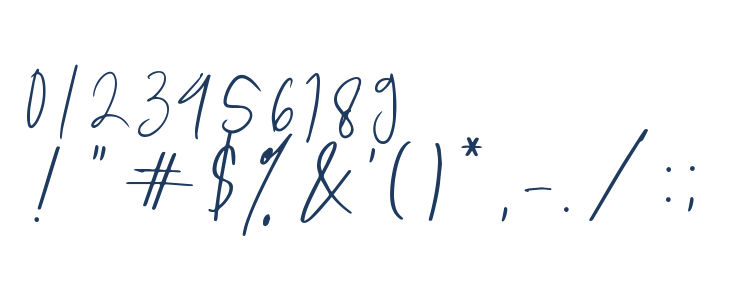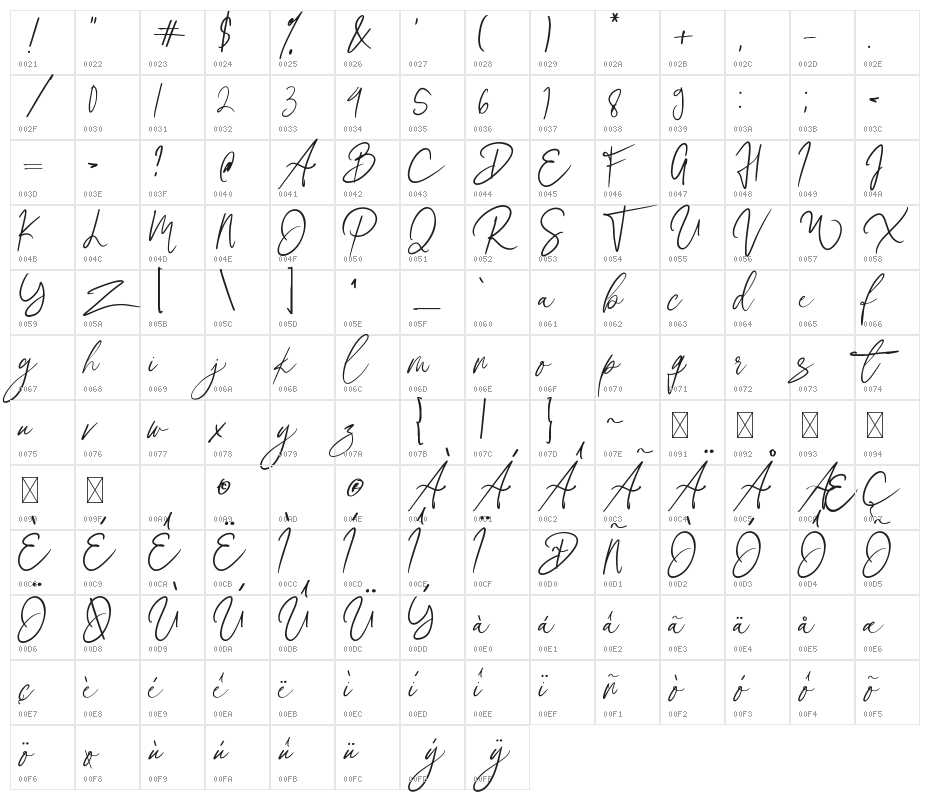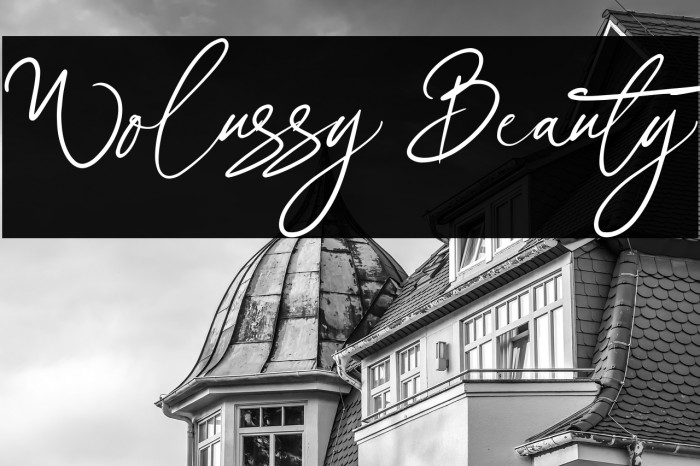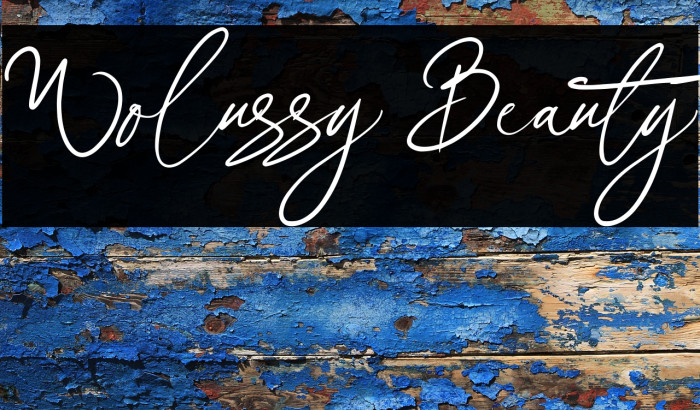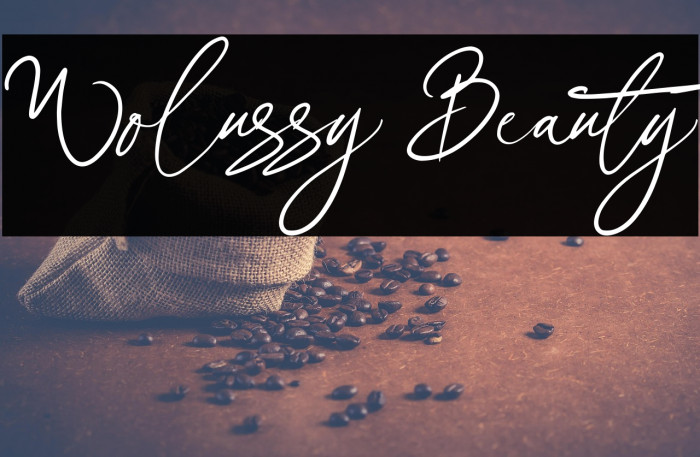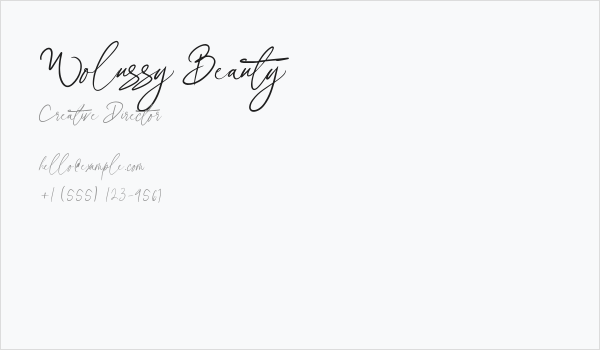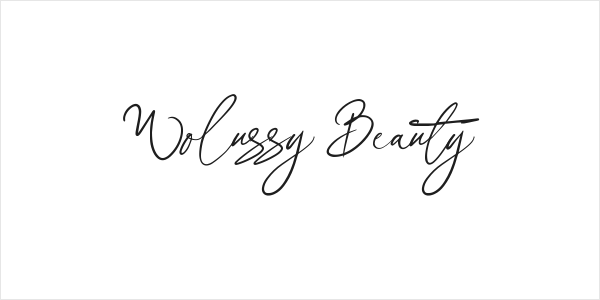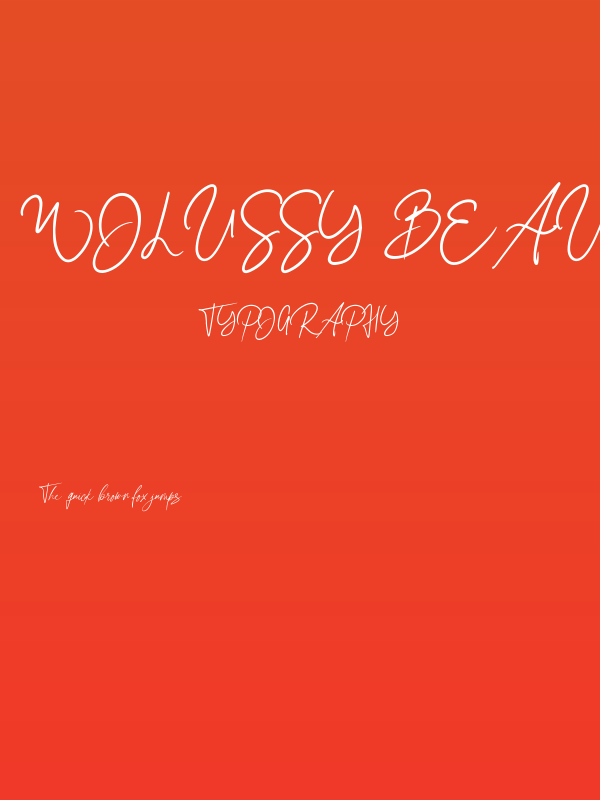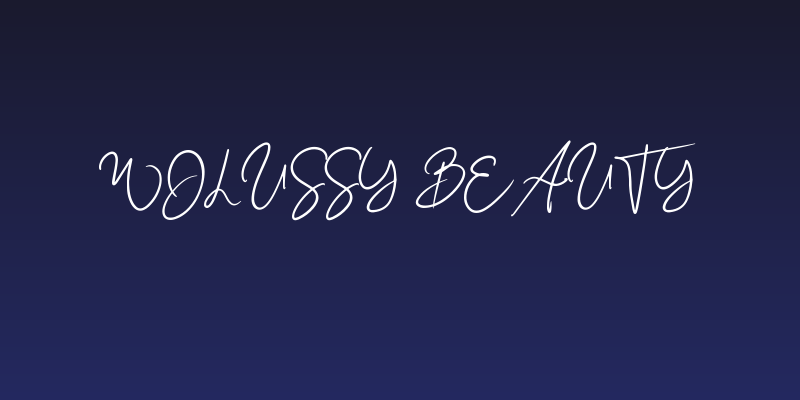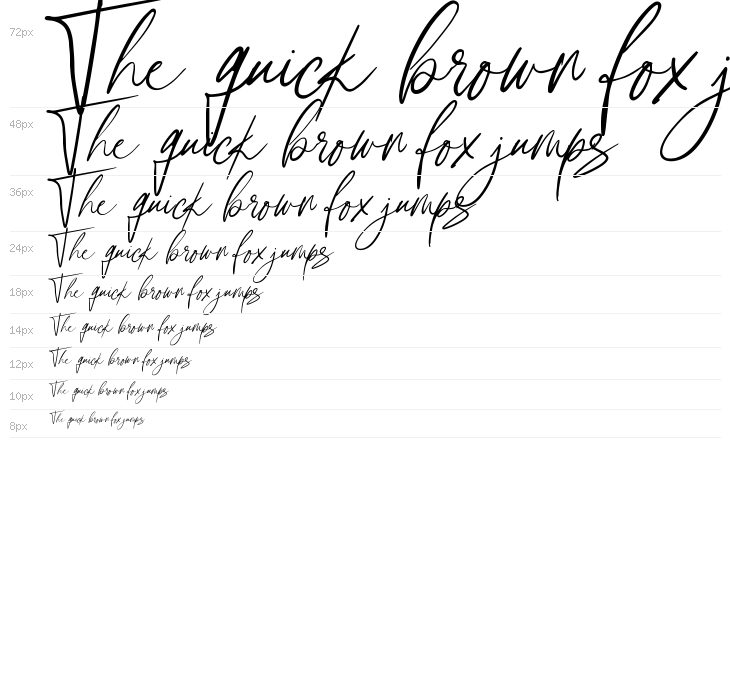
Wolussy Beauty Font
Wolussy Beauty Description
This font features an elegant, flowing script style that mimics natural handwriting. The letters are connected with smooth, sweeping curves, giving it a fluid and dynamic appearance. The uppercase letters are slightly larger and more ornate, while the lowercase letters maintain a consistent, graceful form. The numerals are distinct yet harmonize well with the alphabetic characters. Special characters are included, maintaining the same cursive style. This font exudes a sense of sophistication and personal touch, making it ideal for projects that require a handwritten aesthetic.
Overall StyleElegant, Handwritten
Use CaseLogos, Invitations, Personal Branding
Proposed ProjectsIdeal for wedding invitations, greeting cards, personal branding, and any project requiring a personal touch.